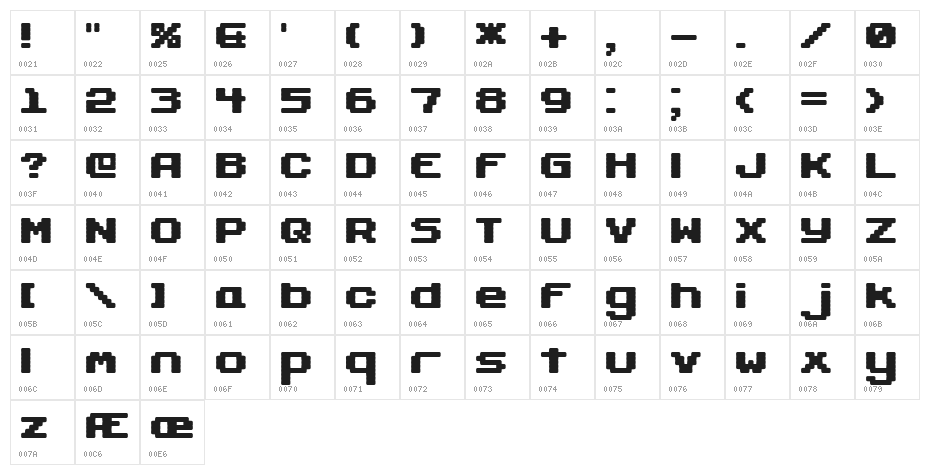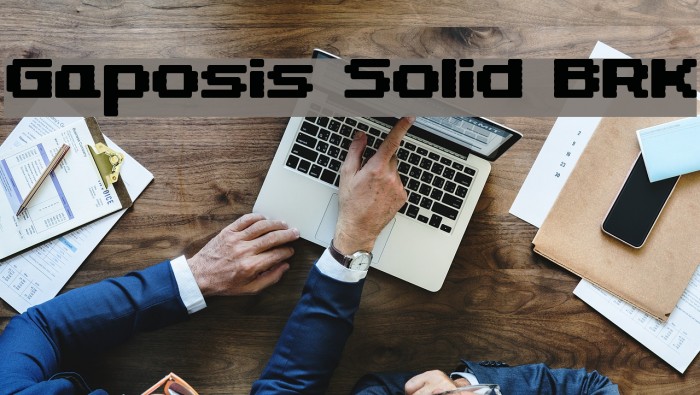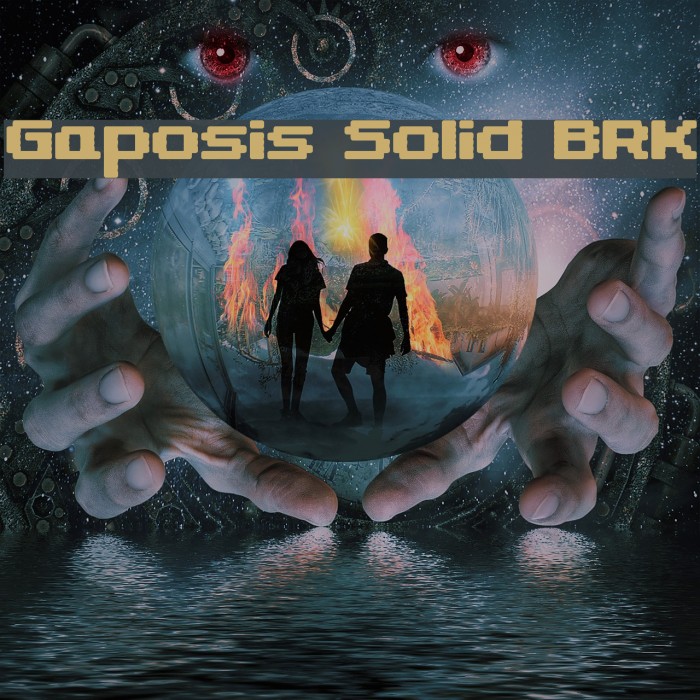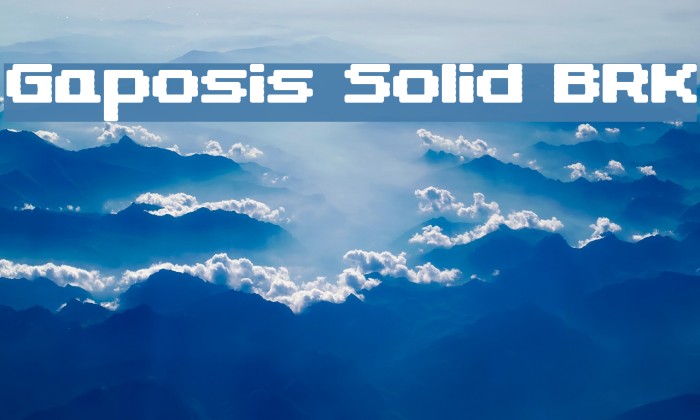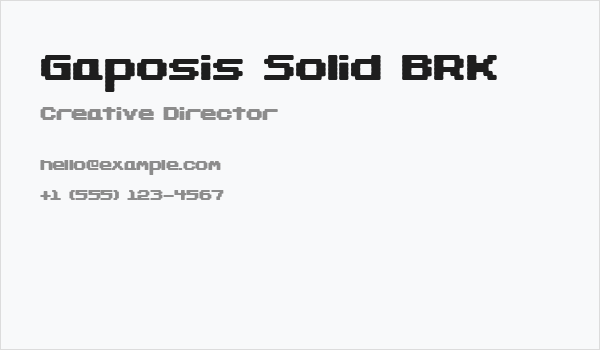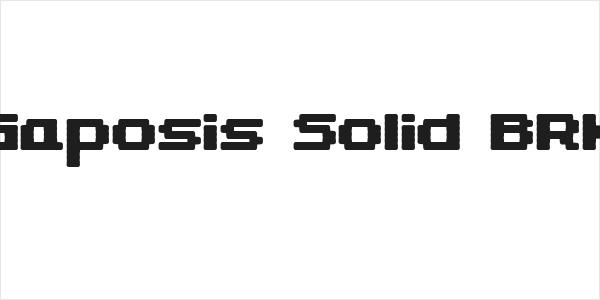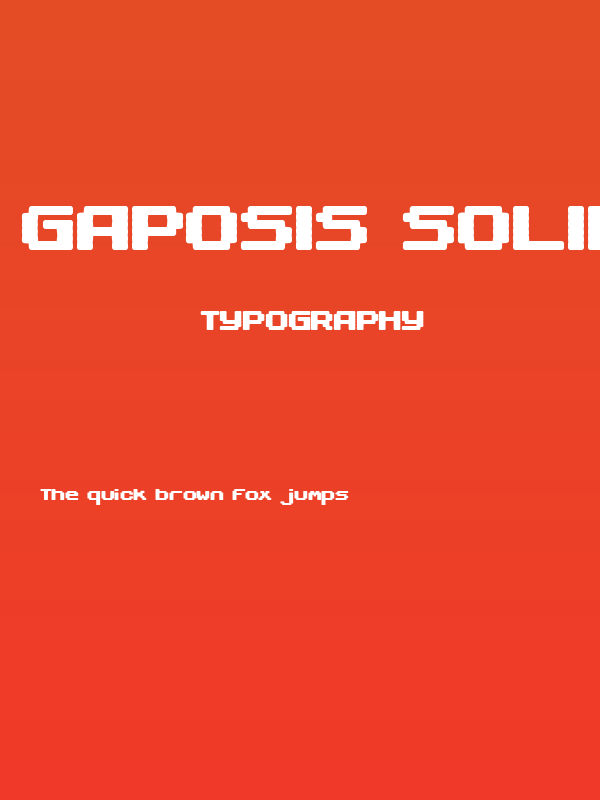
Gaposis Solid BRK Font
Gaposis Solid BRK Description
This font features a bold, pixelated style reminiscent of early digital displays and retro video games. The characters are constructed with a blocky, geometric form that gives a distinct, tech-inspired appearance. The uppercase and lowercase letters maintain a consistent height, enhancing the uniformity and cohesion of the design. Numbers and special characters follow the same pixelated pattern, ensuring a seamless visual experience across all text elements. The font's solid, robust structure makes it highly legible, even at smaller sizes, while its unique aesthetic adds a playful, nostalgic touch to any project.
| Proposed Projects | Ideal for video game design, tech-themed posters, retro branding, and digital art projects. |